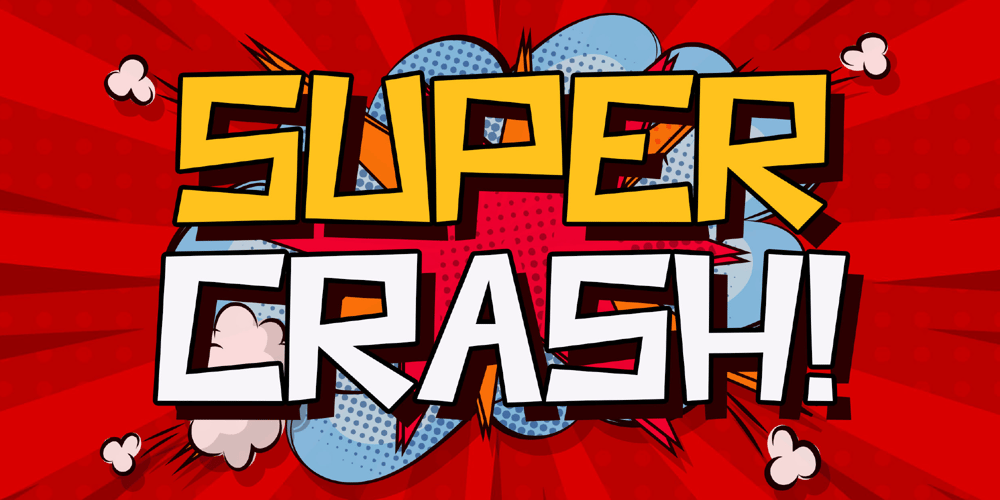
Super Crash Font Family was designed by Achmad Yani and published by Flawlessandco. Super Crash contains 1 styles and family package options. “Super Crash” is a Playful Display Comic Typeface. “Super Crash,” a display comic typeface designed to infuse your designs with vibrant energy and lighthearted charm.There’s some connected letters and some alternates that suitable for any graphic designs.This font support for some multilingual. Also contains uppercase A-Z and lowercase a-z, alternate character, numbers 0-9, and some punctuation.If you need help, just write me! Thanks so much for checking out my shop!